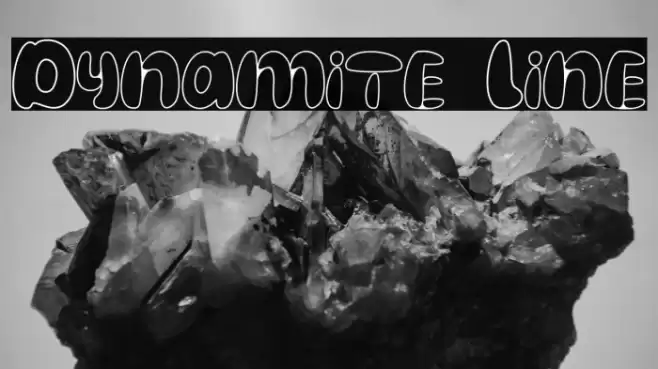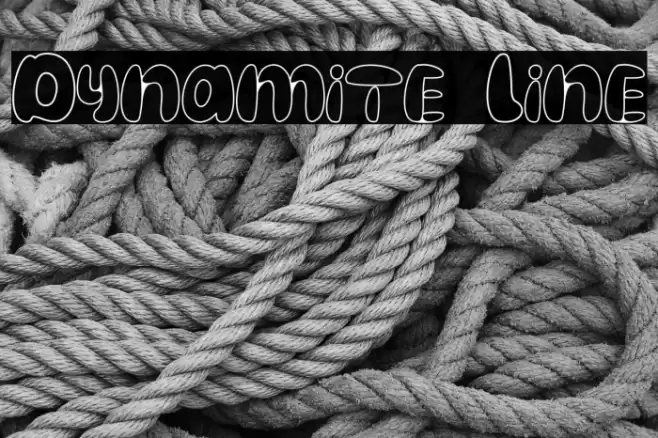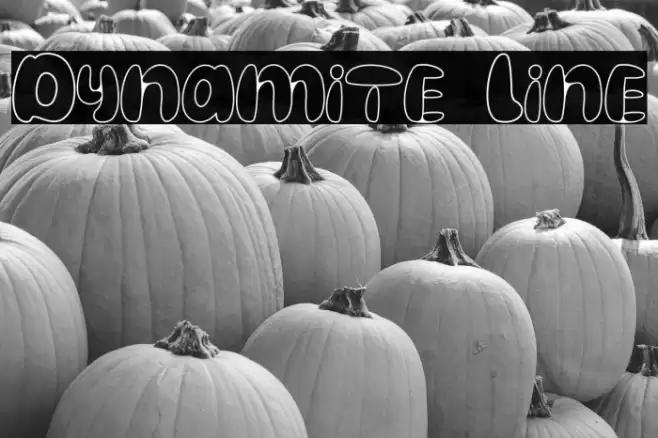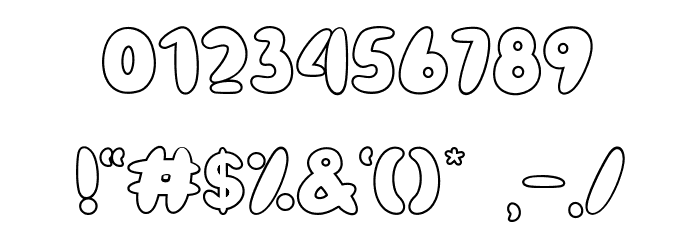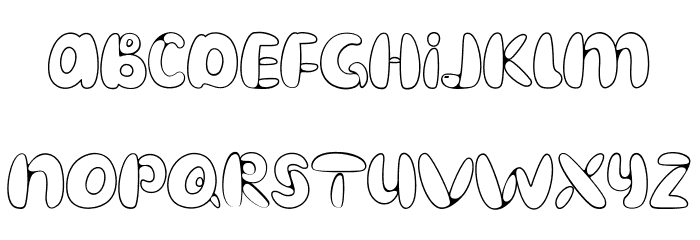
Dynamite Line Font
Dynamite Line Description
This playful and bold font features a unique bubble-like design with hollow interiors, creating a striking visual effect. Each character is crafted with rounded edges and a consistent stroke width, giving it a friendly and approachable appearance. The uppercase and lowercase letters maintain a uniform style, while the numerals and special characters seamlessly integrate into the overall design. This font's distinctive style makes it ideal for projects that require a fun and engaging aesthetic.
A playful, bubble-like font with hollow interiors and rounded edges from Cartoon fonts.
- Proposed Projects: Perfect for children's books, playful branding, party invitations, and creative posters.
- Overall Style: Playful